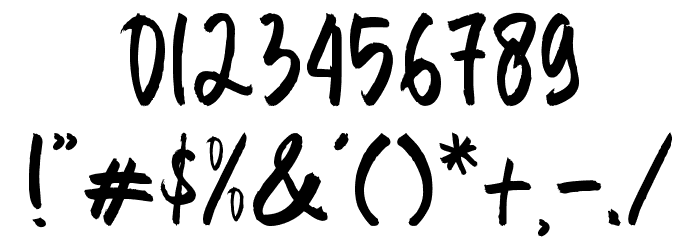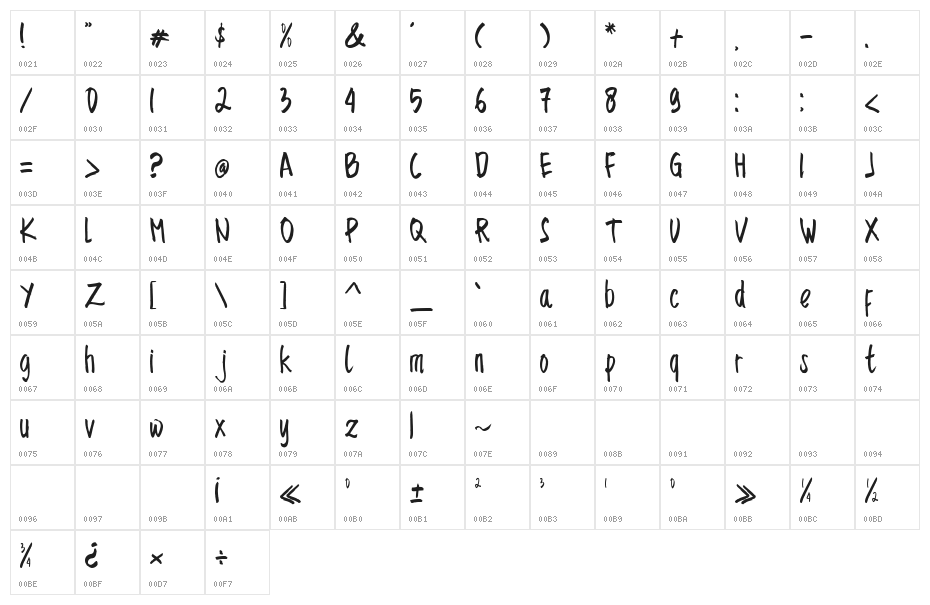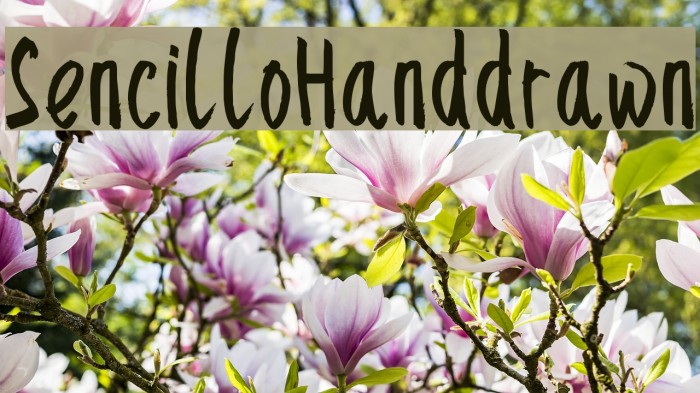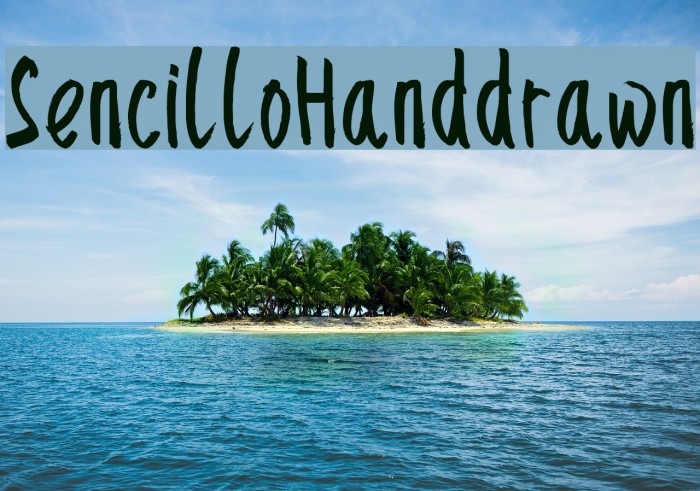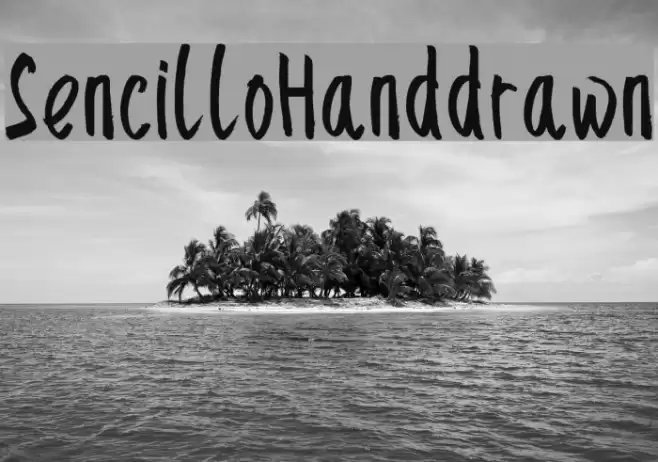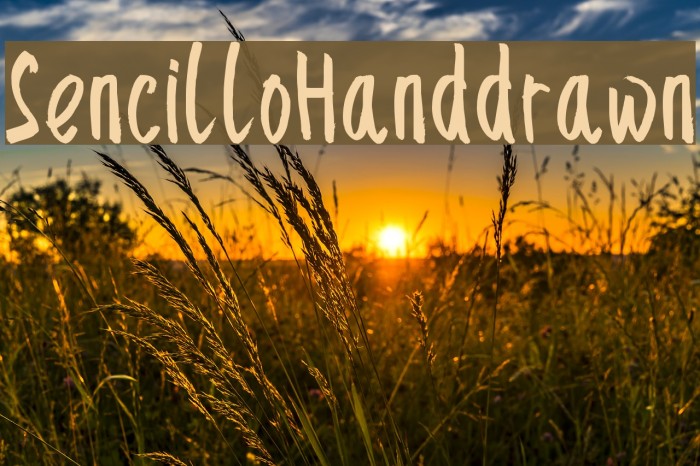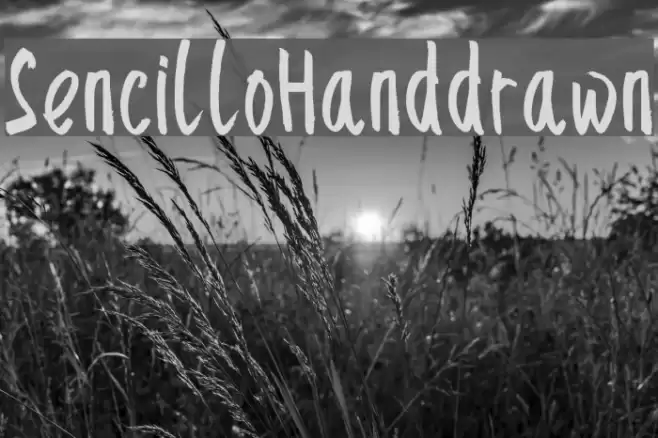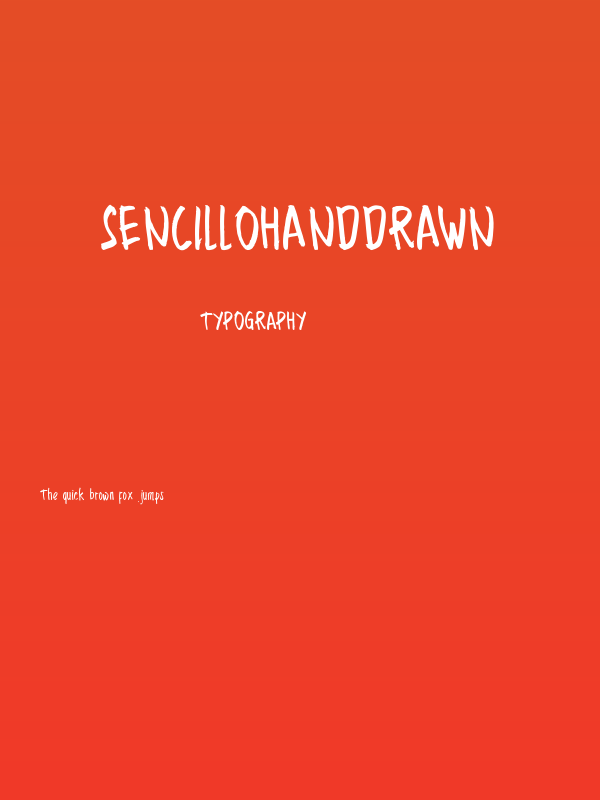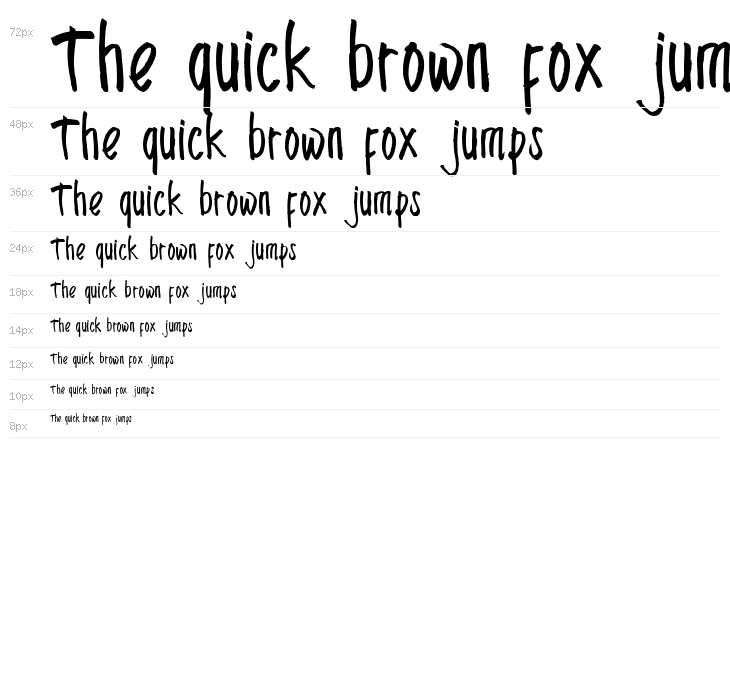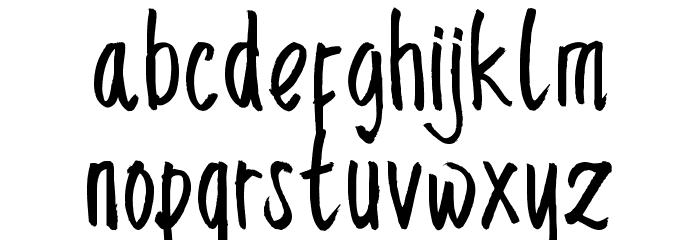
SencilloHanddrawn Font
SencilloHanddrawn Description
This font exudes a playful and artistic vibe, characterized by its hand-drawn appearance. The letters are uneven and slightly irregular, giving it a casual and informal look. The strokes vary in thickness, adding to the hand-crafted feel. The uppercase and lowercase letters maintain a consistent style, with a slight slant that suggests movement and energy. The numerals and special characters follow the same aesthetic, ensuring a cohesive look across all glyphs. This font is perfect for projects that require a personal touch, such as invitations, greeting cards, or creative branding.
Proposed ProjectsIdeal for invitations, greeting cards, creative branding, and artistic projects.